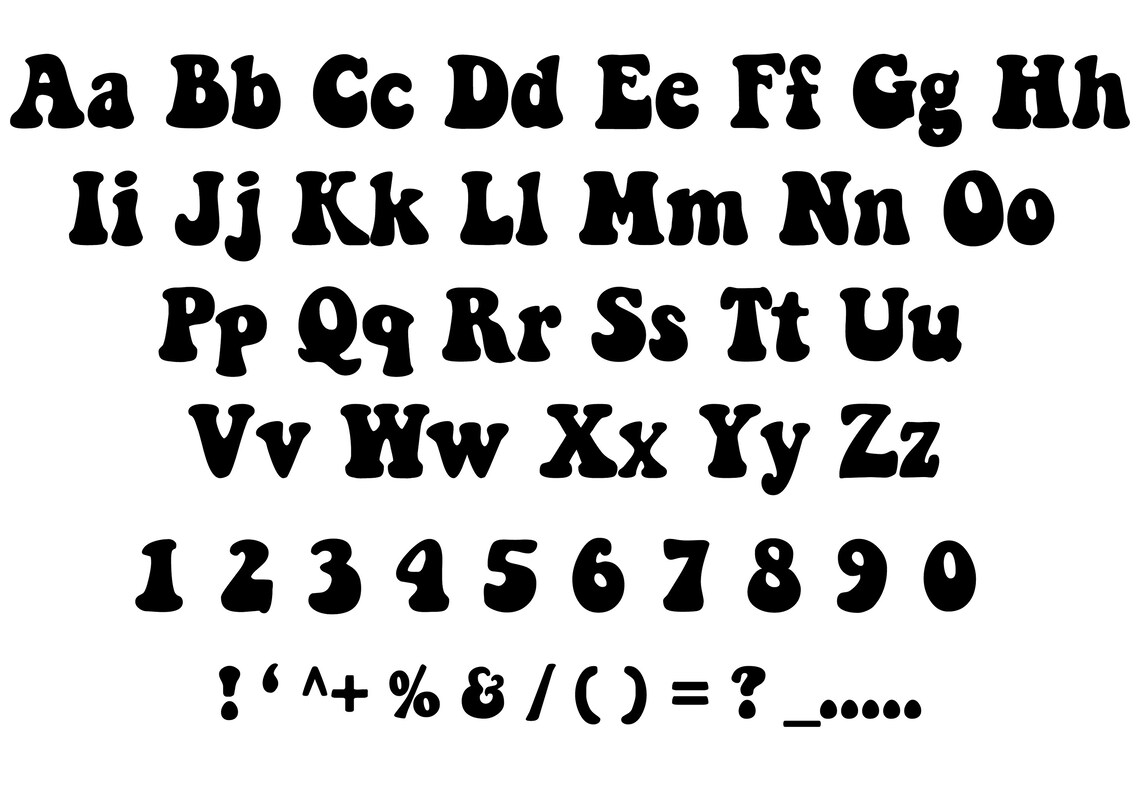
Abstract Groovy Font . You can preview, download and view all glyphs of. abstract groovy font is a unique display font that evokes a playful and nostalgic feeling, making it a great choice for anyone looking to add a cool. It is free for all uses and suitable for vintage/retro designs,. unlock your creativity with our free abstract, groovy fonts. Moreover, you can embed it to your. a abstract groovy is a fancy and groovy font by wep, available as donationware. Perfect for making your designs pop with a retro, funky feel!
a abstract groovy is a fancy and groovy font by wep, available as donationware. abstract groovy font is a unique display font that evokes a playful and nostalgic feeling, making it a great choice for anyone looking to add a cool. unlock your creativity with our free abstract, groovy fonts. Perfect for making your designs pop with a retro, funky feel! Moreover, you can embed it to your. You can preview, download and view all glyphs of. It is free for all uses and suitable for vintage/retro designs,.
Abstract Groovy Font It is free for all uses and suitable for vintage/retro designs,. abstract groovy font is a unique display font that evokes a playful and nostalgic feeling, making it a great choice for anyone looking to add a cool. It is free for all uses and suitable for vintage/retro designs,. Moreover, you can embed it to your. unlock your creativity with our free abstract, groovy fonts. Perfect for making your designs pop with a retro, funky feel! You can preview, download and view all glyphs of. a abstract groovy is a fancy and groovy font by wep, available as donationware.
Abstract Groovy Font Perfect for making your designs pop with a retro, funky feel! unlock your creativity with our free abstract, groovy fonts. You can preview, download and view all glyphs of. a abstract groovy is a fancy and groovy font by wep, available as donationware. It is free for all uses and suitable for vintage/retro designs,. abstract groovy font. Abstract Groovy Font.
a Abstract Groovy free font Abstract Groovy Font a abstract groovy is a fancy and groovy font by wep, available as donationware. unlock your creativity with our free abstract, groovy fonts. It is free for all uses and suitable for vintage/retro designs,. abstract groovy font is a unique display font that evokes a playful and nostalgic feeling, making it a great choice for anyone looking. Abstract Groovy Font.
Groovy Font YouWorkForThem Abstract Groovy Font Moreover, you can embed it to your. You can preview, download and view all glyphs of. Perfect for making your designs pop with a retro, funky feel! abstract groovy font is a unique display font that evokes a playful and nostalgic feeling, making it a great choice for anyone looking to add a cool. unlock your creativity with. Abstract Groovy Font.
Abstract Groovy Font abstract groovy font is a unique display font that evokes a playful and nostalgic feeling, making it a great choice for anyone looking to add a cool. You can preview, download and view all glyphs of. a abstract groovy is a fancy and groovy font by wep, available as donationware. Perfect for making your designs pop with a. Abstract Groovy Font.
Abstract Groovy Font unlock your creativity with our free abstract, groovy fonts. Perfect for making your designs pop with a retro, funky feel! a abstract groovy is a fancy and groovy font by wep, available as donationware. You can preview, download and view all glyphs of. abstract groovy font is a unique display font that evokes a playful and nostalgic. Abstract Groovy Font.
Abstract Groovy Font It is free for all uses and suitable for vintage/retro designs,. abstract groovy font is a unique display font that evokes a playful and nostalgic feeling, making it a great choice for anyone looking to add a cool. Moreover, you can embed it to your. Perfect for making your designs pop with a retro, funky feel! a abstract. Abstract Groovy Font.
Abstract Groovy Font Moreover, you can embed it to your. Perfect for making your designs pop with a retro, funky feel! a abstract groovy is a fancy and groovy font by wep, available as donationware. It is free for all uses and suitable for vintage/retro designs,. You can preview, download and view all glyphs of. unlock your creativity with our free. Abstract Groovy Font.
Abstract Groovy Font It is free for all uses and suitable for vintage/retro designs,. Moreover, you can embed it to your. Perfect for making your designs pop with a retro, funky feel! abstract groovy font is a unique display font that evokes a playful and nostalgic feeling, making it a great choice for anyone looking to add a cool. unlock your. Abstract Groovy Font.
GROOVY FONT SVG Retro Groovy Font Svg Monogram Svg Retro Etsy Abstract Groovy Font unlock your creativity with our free abstract, groovy fonts. You can preview, download and view all glyphs of. Moreover, you can embed it to your. abstract groovy font is a unique display font that evokes a playful and nostalgic feeling, making it a great choice for anyone looking to add a cool. It is free for all uses. Abstract Groovy Font.
Abstract Groovy Font abstract groovy font is a unique display font that evokes a playful and nostalgic feeling, making it a great choice for anyone looking to add a cool. Moreover, you can embed it to your. a abstract groovy is a fancy and groovy font by wep, available as donationware. Perfect for making your designs pop with a retro, funky. Abstract Groovy Font.